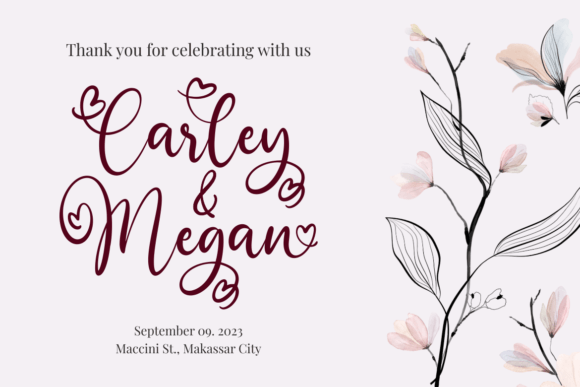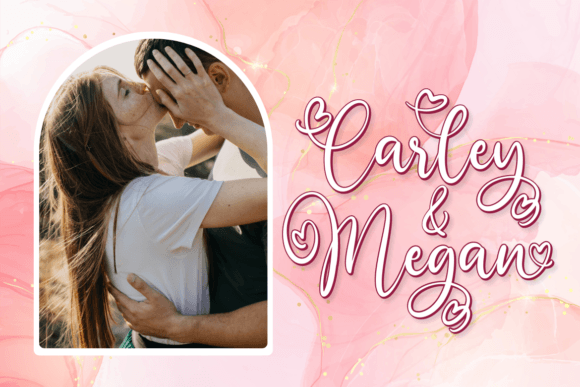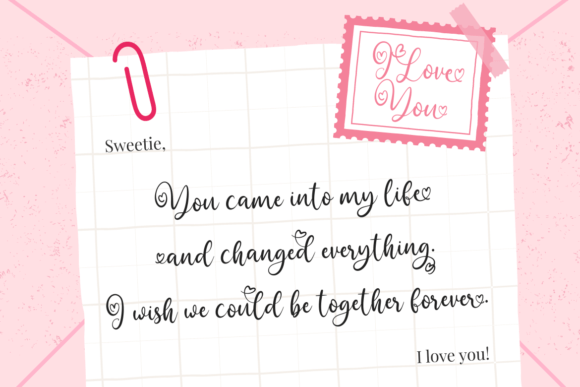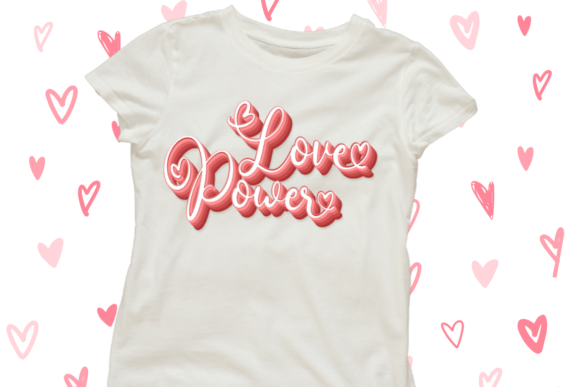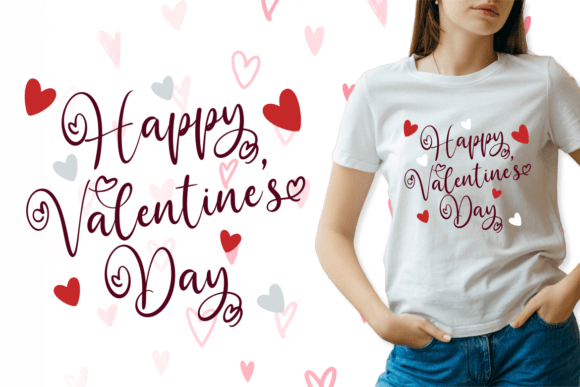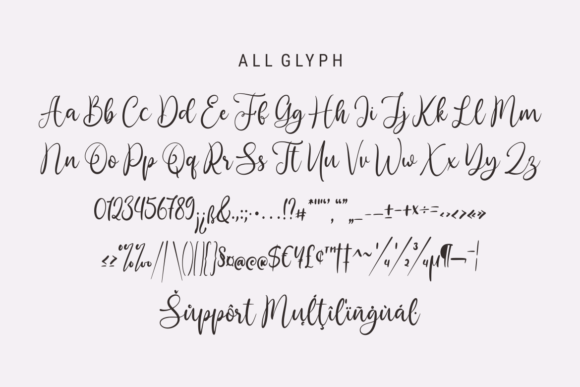
Beside Script Font
Beside Script is a lovely, stylish, and greatly detailed handwritten font. Very suitable for your Valentine’s theme design, this font will guarantee a romantic touch to each of your creations! This font is PUA encoded, which means you can access all of the glyphs and swashes with ease!